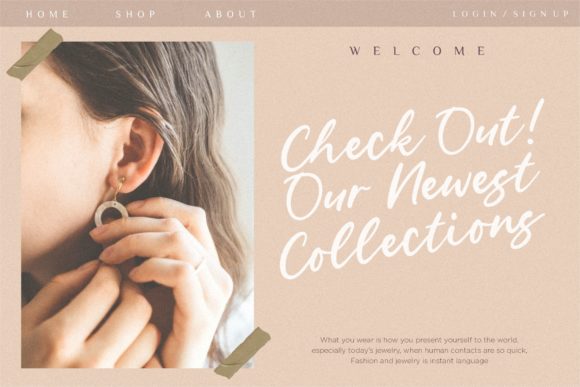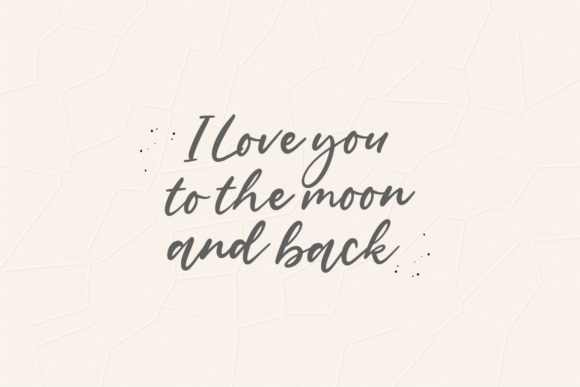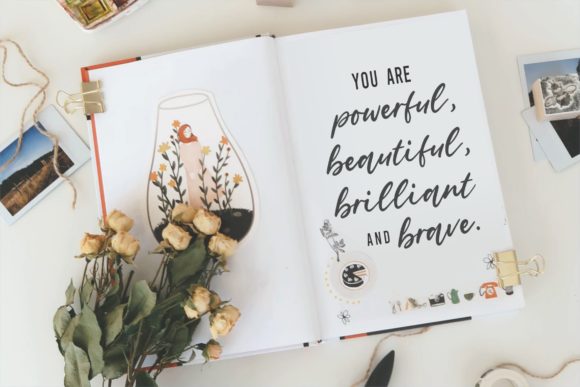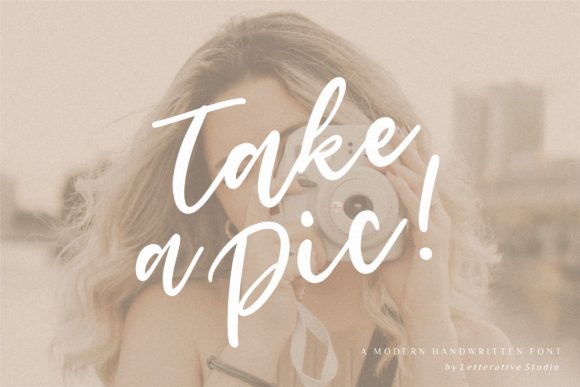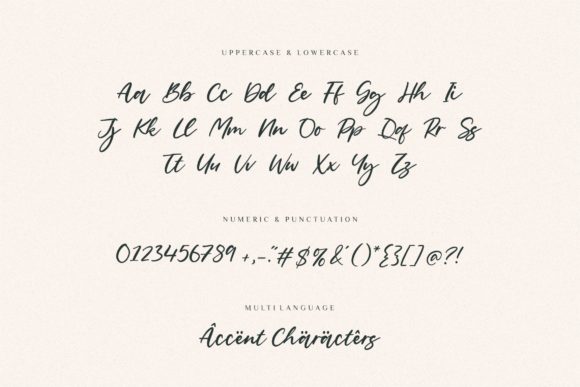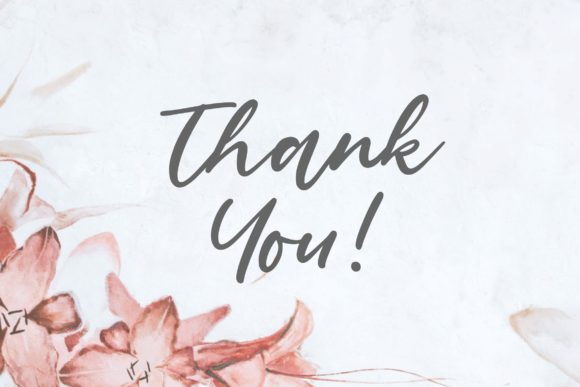
Discover the Charm of Goldena Font: Elevate Your Designs with its Unique Style
Are you a designer or crafter looking for a font that can add a touch of elegance and sweetness to your creations? Look no further than Goldena Font! This stunning round-lettered and handwritten font is sure to capture your heart with its distinct and timeless style. In this article, we’ll dive into the world of Goldena Font, exploring its features, benefits, and uses, as well as provide tips on how to make the most of this beautiful font.
What is Goldena Font?
Goldena Font is a carefully crafted font that boasts a round-lettered and beautiful handwritten style, characterized by a sweet touch. Its unique design makes it stand out from other fonts, giving it a distinct and timeless appeal. Whether you’re working on a branding project, crafting a social media graphic, or creating a stunning visual display, Goldena Font is the perfect choice to add a touch of sophistication and charm.
Key Features of Goldena Font
- Round-Lettered Design: Goldena Font features a round-lettered design that gives it a soft and approachable feel.
- Handwritten Style: The font’s handwritten style adds a personal touch, making it perfect for projects that require a human touch.
- Sweet and Elegant: Goldena Font exudes a sense of sweetness and elegance, making it ideal for designs that require a touch of sophistication.
- Distinct and Timeless: The font’s unique design ensures that it will remain timeless, avoiding the risk of looking outdated or trendy.
Benefits of Using Goldena Font
So, why choose Goldena Font for your design projects? Here are just a few benefits of using this stunning font:
- Emotional Connection: Goldena Font’s sweet and elegant design helps create an emotional connection with your audience, making your designs more relatable and engaging.
- Versatility: The font’s versatility makes it suitable for a wide range of design projects, from branding and advertising to crafting and DIY.
- Easy to Read: Goldena Font’s clear and legible design ensures that your message is conveyed effectively, making it perfect for body text and headings.
Tips for Using Goldena Font
To make the most of Goldena Font, here are some expert tips:
- Pair with Contrasting Fonts: Combine Goldena Font with contrasting fonts to create visual interest and hierarchy in your designs.
- Use for Headings and Titles: Goldena Font’s elegant design makes it perfect for headings and titles, adding a touch of sophistication to your designs.
- Experiment with Colors: Try pairing Goldena Font with different colors to create unique and eye-catching designs that reflect your brand’s personality.
Who Can Benefit from Goldena Font?
Goldena Font is perfect for a wide range of designers and crafters, including:
- Graphic Designers: Add a touch of elegance to your branding, advertising, and marketing materials.
- Crafters: Use Goldena Font to create stunning visual displays, signs, and DIY projects.
- Social Media Influencers: Elevate your social media graphics and posts with Goldena Font’s unique style.
In conclusion, Goldena Font is a beautiful and unique font that can elevate your designs to the next level. Its sweet and elegant design, combined with its versatility and legibility, make it the perfect choice for designers and crafters. Whether you’re working on a branding project or crafting a social media graphic, Goldena Font is sure to capture your heart and inspire your creativity. So why wait? Fall in love with Goldena Font and create spectacular designs that leave a lasting impression!